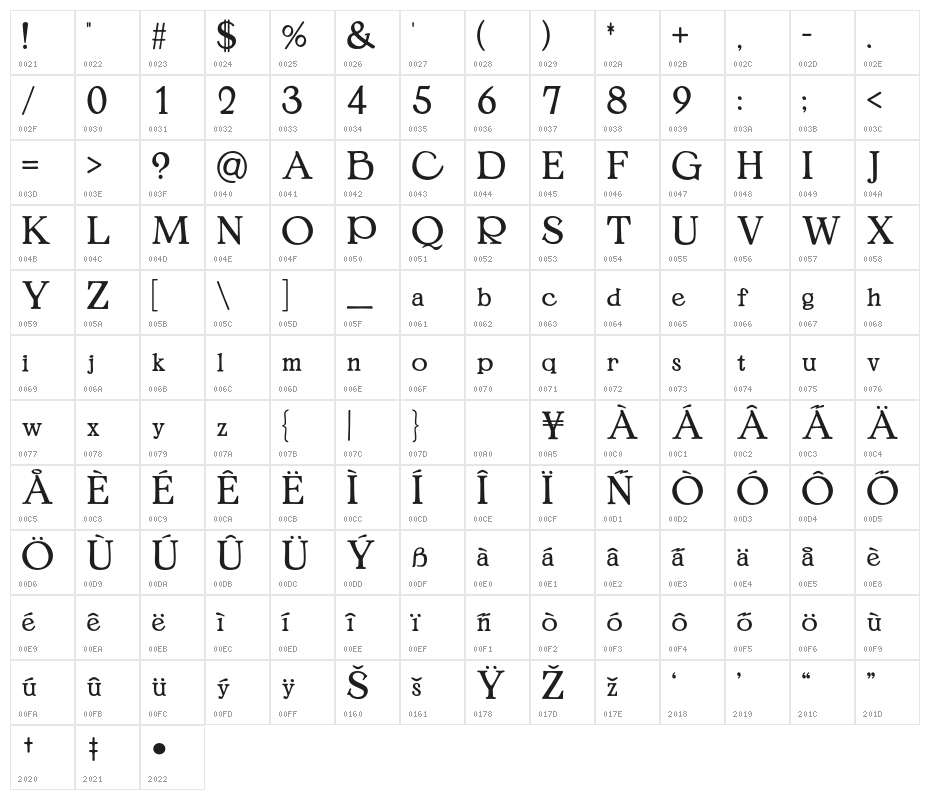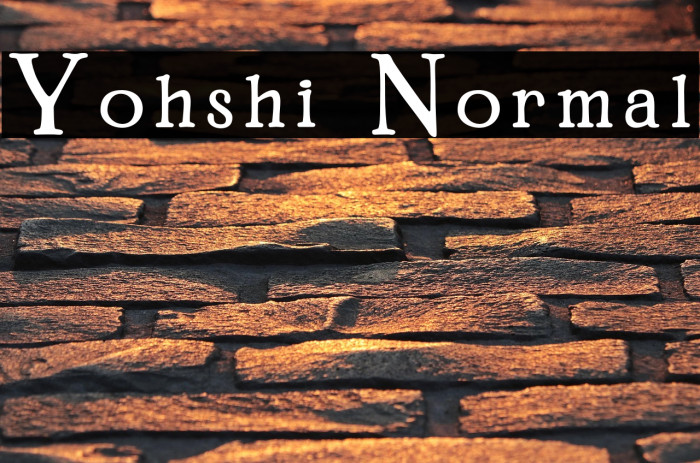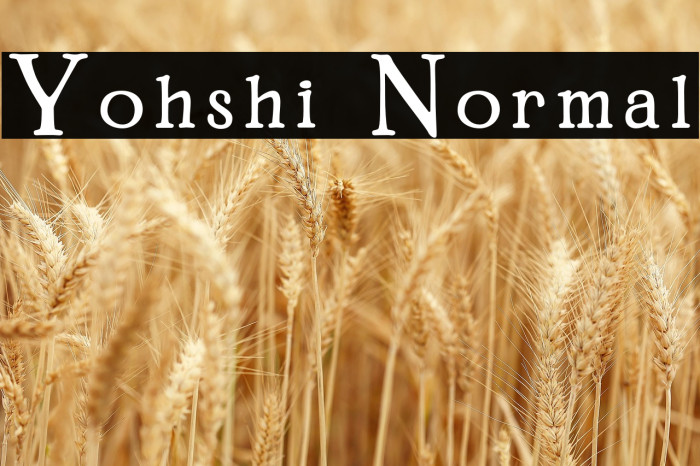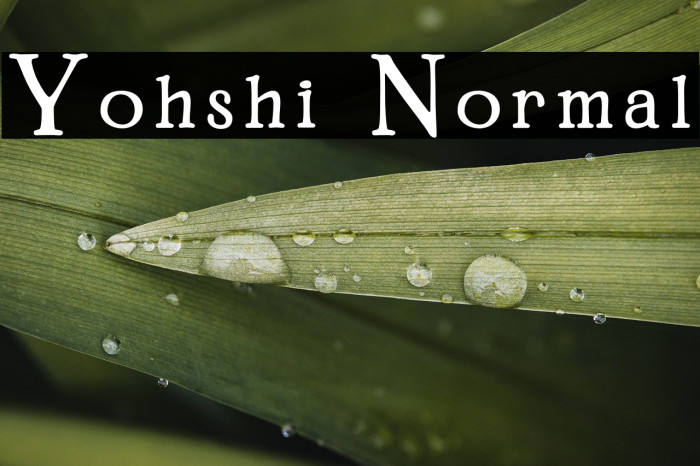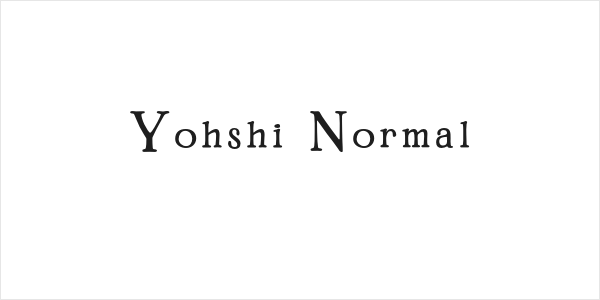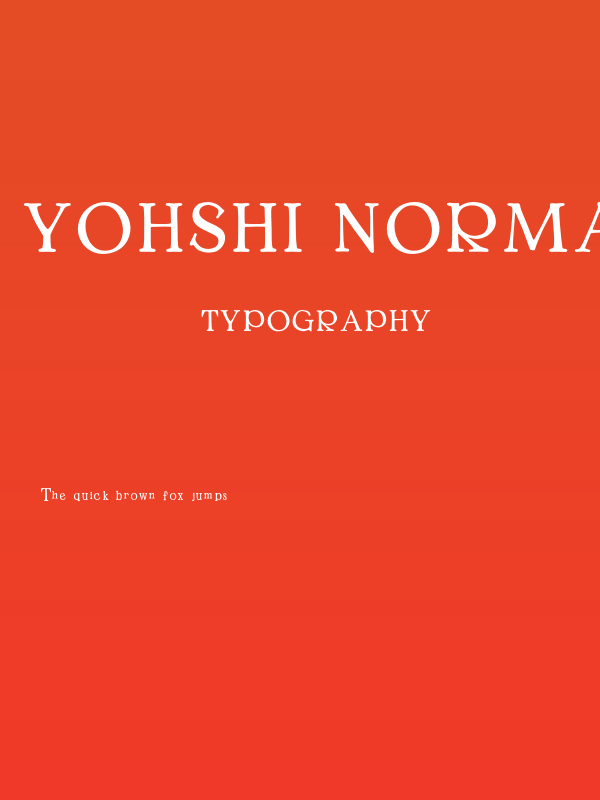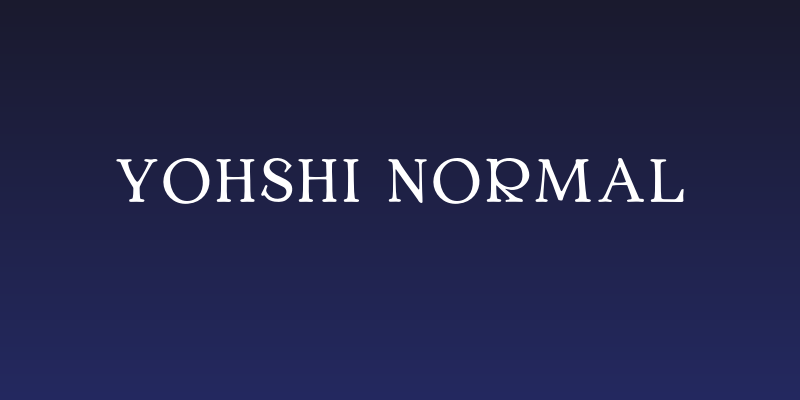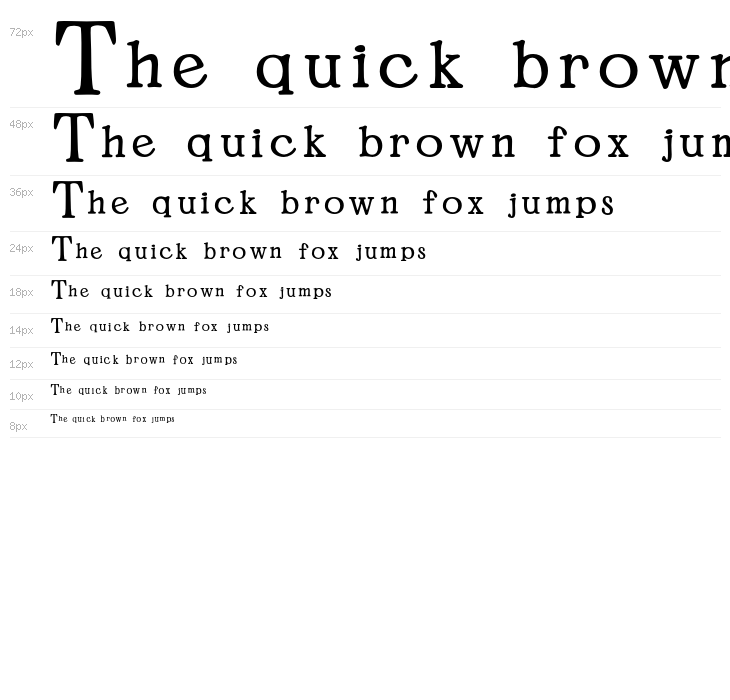
Yohshi Normal Font
Yohshi Normal Description
This font features a classic serif style with a touch of elegance and sophistication. The characters have a traditional serif structure, offering a timeless and refined appearance. The uppercase letters are bold and commanding, while the lowercase letters maintain a consistent and harmonious flow. The numerals are clear and distinct, making them easily readable. Special characters are well-integrated, maintaining the overall aesthetic of the font. The design is versatile, suitable for both formal and creative applications, providing a balance between readability and style.
| Categories | Serif |
| Overall Style | Classic |
| Use Case | Headlines, Body text, Logos |
| Proposed Projects | Ideal for editorial design, book covers, formal invitations, and branding projects that require a touch of sophistication. |